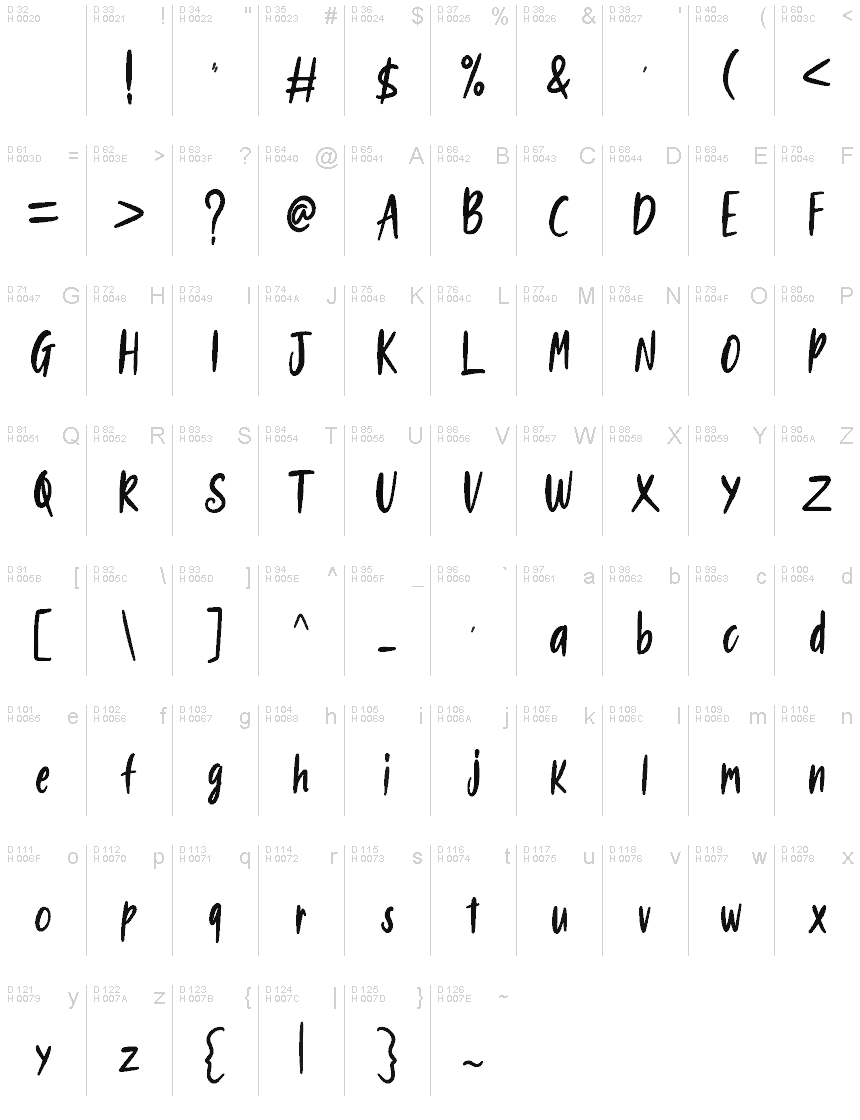
New Bartons is a charming, handmade brush font that exudes a whimsical, yet polished aesthetic. With its bold, condensed strokes and playful, organic curves, this script font is a captivating choice for adding a touch of romance and personality to your designs.
Ideal for use as a display or headline font, New Bartons shines in a variety of applications, from logos and logotypes to fashion branding, book covers, and social media posts. Its versatility makes it a valuable asset for designers seeking to infuse their work with a sense of handcrafted authenticity and visual appeal.
New Bartons